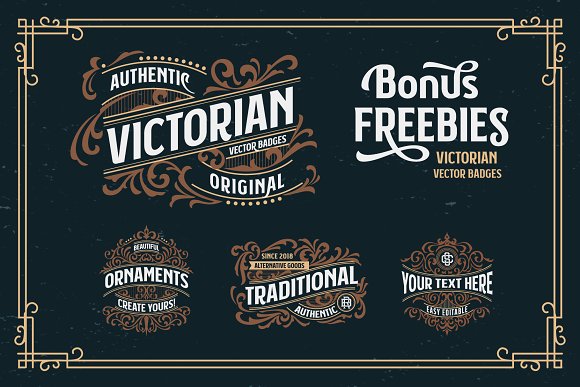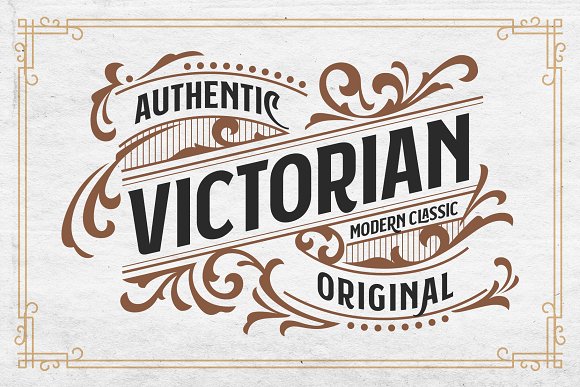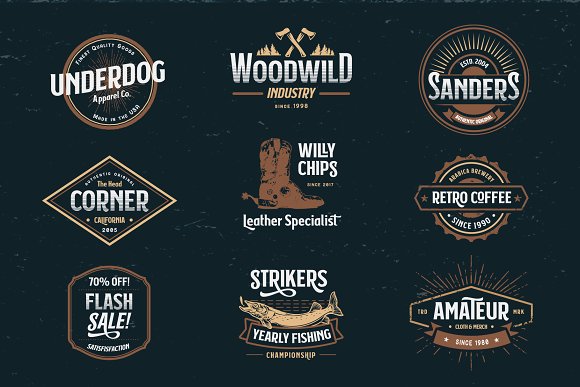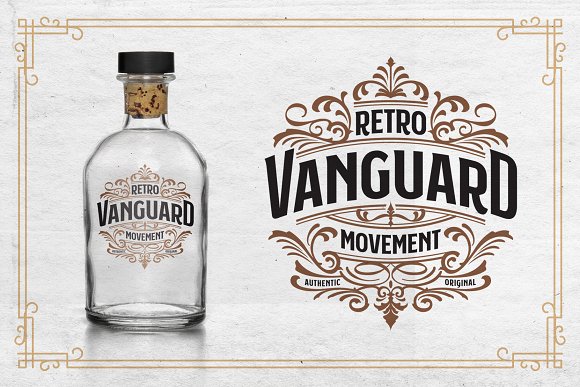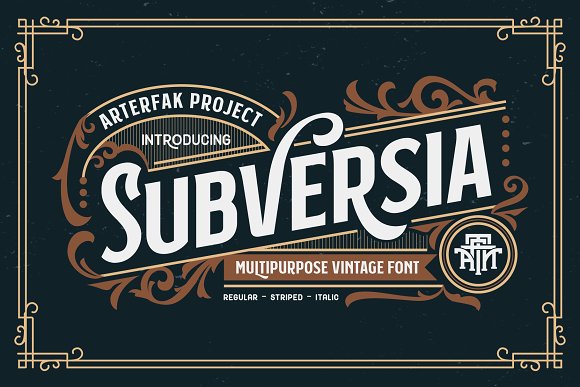
Subversia Typeface
Introducing Subversia Font. It is designed by Arterfak Project, this is a premium font, are sold on creativemarket, but it was great, it is free today for download. Inspired from sport and Victorian style. Designed with elegant and solid shapes to give modern touch. Very suitable for your designs such like poster, flyer, t-shirt, logo, vintage logo, logotype, signage, branding, magazine even body text!